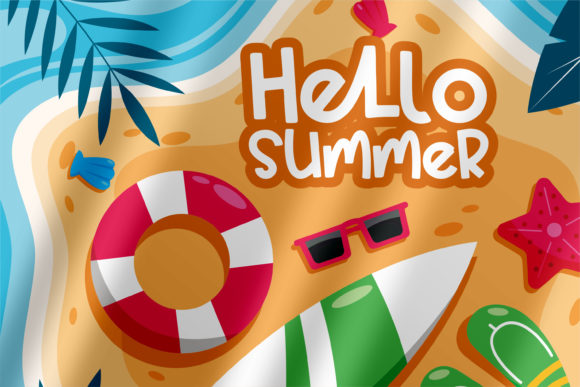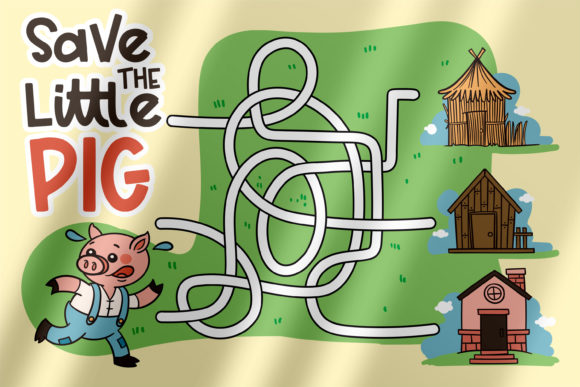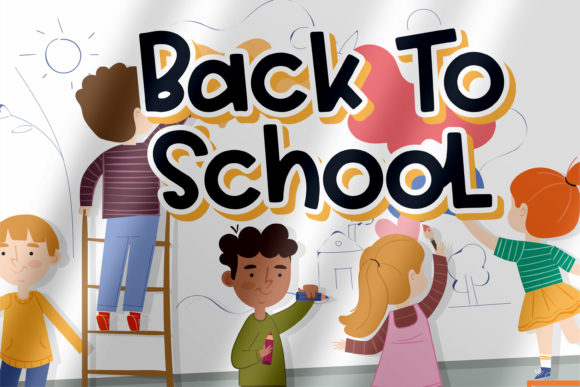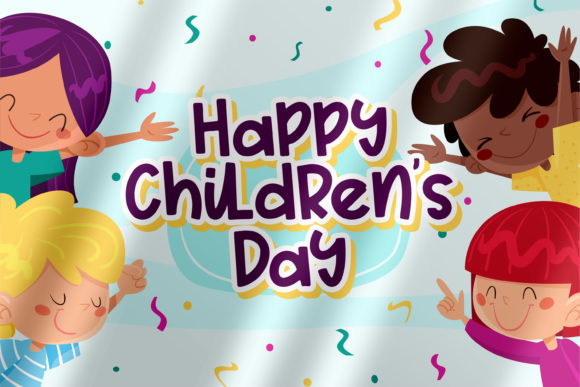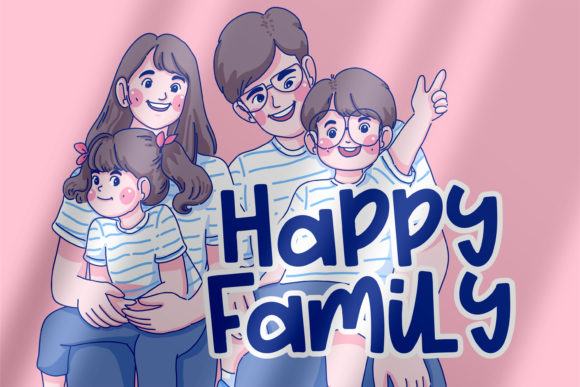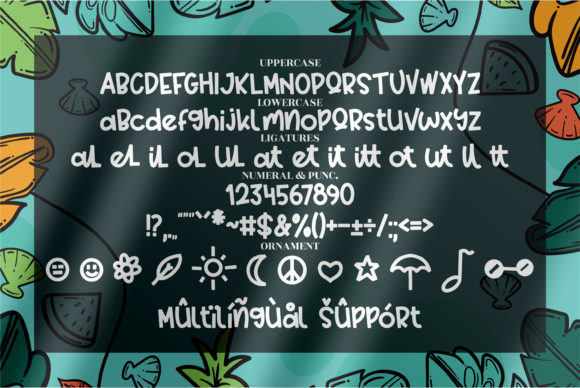
Introducing Delrosa Holiday Font: The Perfect Choice for Playful Designs
Are you looking for a font that embodies playfulness and authenticity? Look no further than Delrosa Holiday Font! This quirky and cool looking display font is perfect for any children activity or school project that requires a fun and lively touch. In this article, we’ll dive into the features and benefits of Delrosa Holiday Font, and explore how it can elevate your designs to the next level.
What is Delrosa Holiday Font?
Delrosa Holiday Font is a unique and eye-catching display font that is designed to bring a sense of playfulness and fun to your designs. Its quirky and irregular shape makes it stand out from more traditional fonts, and its bold and vibrant appearance is sure to grab attention. Whether you’re working on a children’s activity book, a school project, or a craft project, Delrosa Holiday Font is the perfect choice.
Key Features of Delrosa Holiday Font
- Quirky and Playful Design: Delrosa Holiday Font features a unique and irregular design that is sure to add a touch of playfulness to your designs.
- Bold and Vibrant Appearance: The font’s bold and vibrant appearance makes it perfect for designs that require a statement piece.
- Perfect for Children and School Projects: Delrosa Holiday Font is specifically designed with children and school projects in mind, making it the perfect choice for activity books, posters, and more.
- Easily Readable: Despite its quirky design, Delrosa Holiday Font is easily readable, making it perfect for designs that require a fun and playful touch without sacrificing legibility.
Benefits of Using Delrosa Holiday Font
So why choose Delrosa Holiday Font for your designs? Here are just a few benefits of using this unique and playful font:
- Adds a Touch of Personality: Delrosa Holiday Font adds a touch of personality and whimsy to your designs, making them stand out from more traditional and boring fonts.
- Perfect for Crafters and Designers: Delrosa Holiday Font is perfect for crafters and designers who want to add a fun and playful touch to their projects.
- Versatile: Delrosa Holiday Font can be used for a wide range of projects, from children’s activity books to school posters and more.
How to Use Delrosa Holiday Font
Using Delrosa Holiday Font is easy! Here are a few tips for incorporating this fun and playful font into your designs:
- Use it as a Title Font: Delrosa Holiday Font is perfect for use as a title font, adding a touch of personality and whimsy to your designs.
- Pair it with Other Fonts: Delrosa Holiday Font pairs well with other fonts, making it easy to create a unique and visually appealing design.
- Experiment with Colors and Textures: Delrosa Holiday Font looks great in a variety of colors and textures, so don’t be afraid to experiment and find the perfect combination for your design.
In conclusion, Delrosa Holiday Font is a quirky and cool looking display font that is perfect for any children activity or school project. Its playful and authentic design makes it a great choice for crafters and designers who want to add a touch of personality to their projects. With its bold and vibrant appearance, easily readable design, and versatility, Delrosa Holiday Font is sure to become a favorite in your design arsenal.